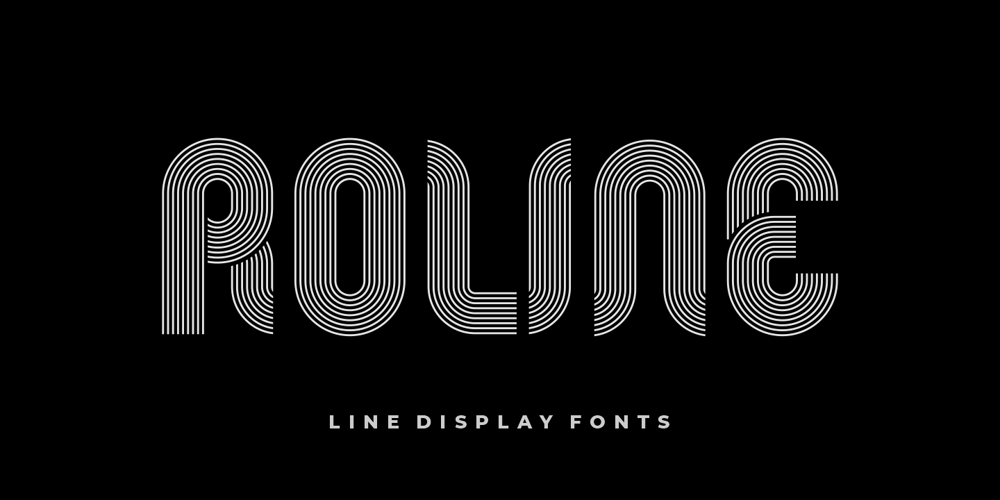
Roline
Roline font
Roline Font Family was designed by Burhan Afif and published by HansCo. Roline contains 1 styles and family package options. INTRODUCINGROLINE – Modern Display typeface!ROLINE is a modern lined font with unique style that will make your design looks modern and sophisticated. You can use this font for any purpose, especially to make logotype like a technology logo brand. This typeface is comes in ALL CAPS also support multilingual in ALL CAPS only.Enjoy!